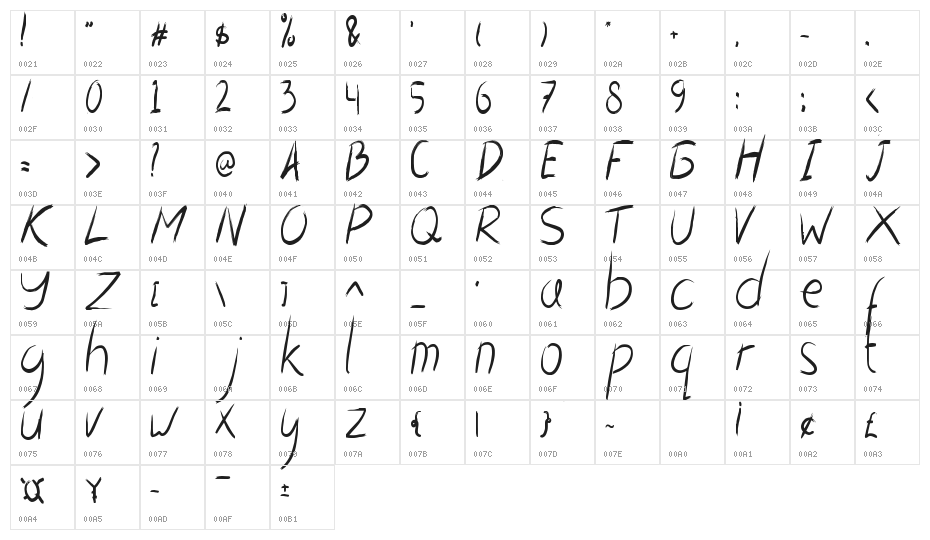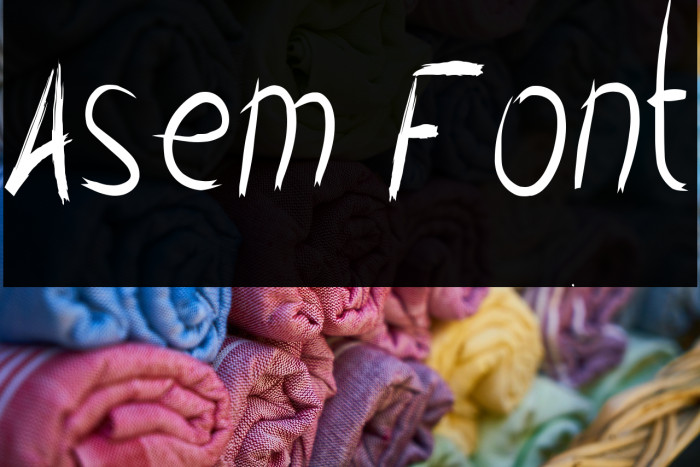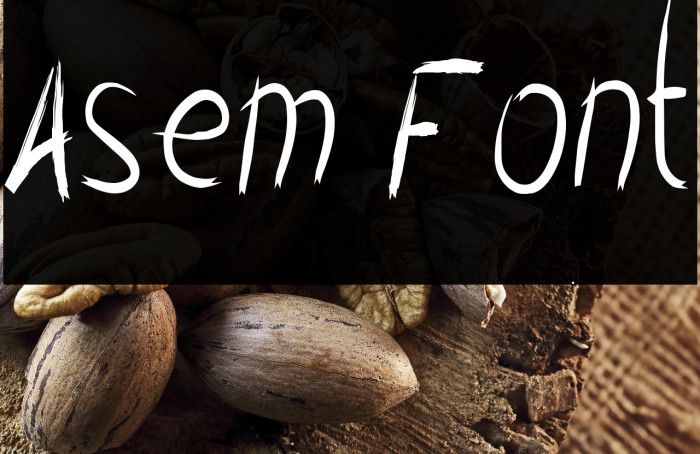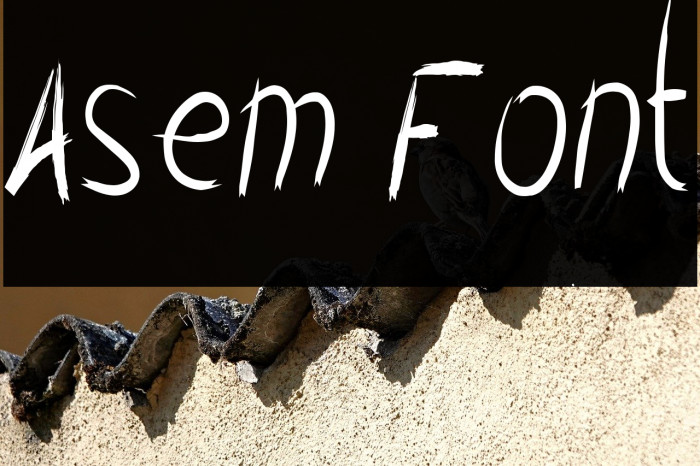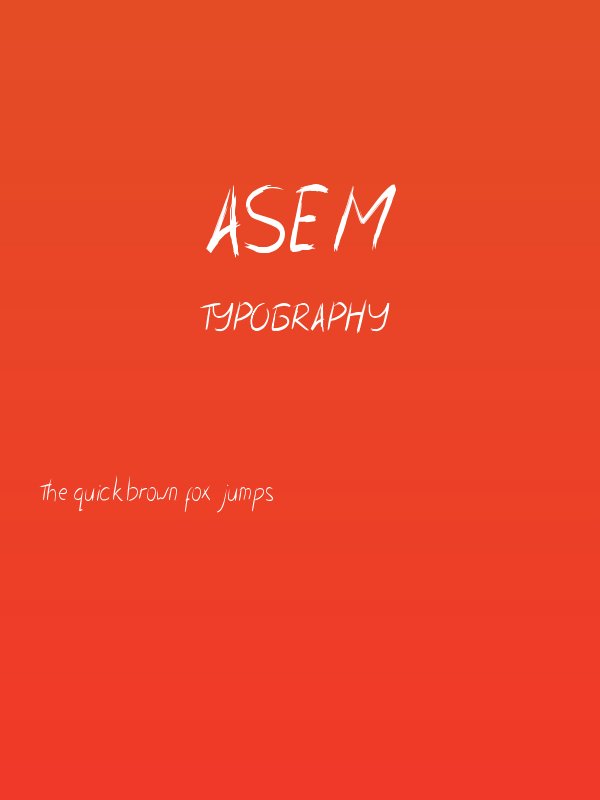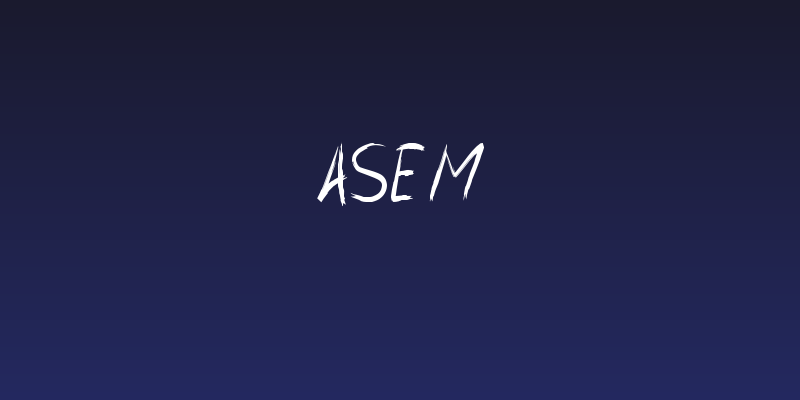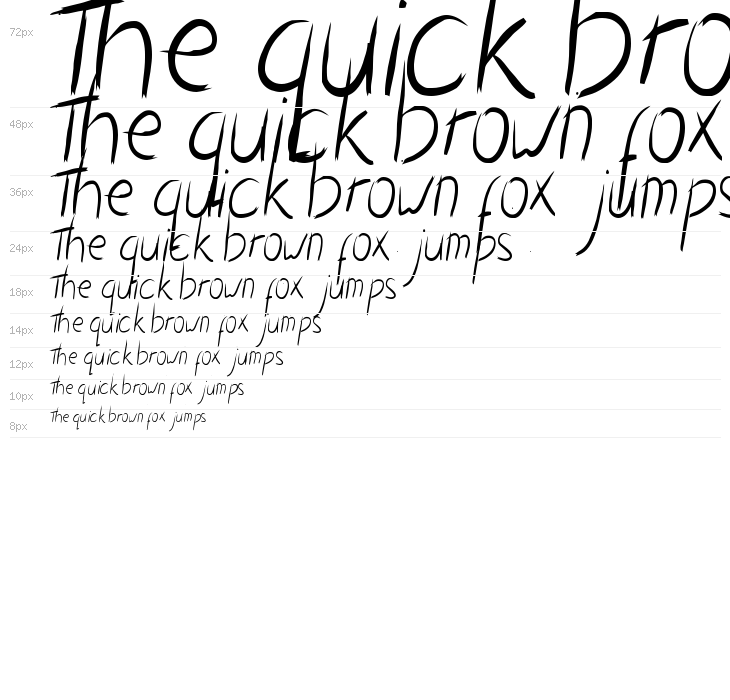
Asem Font
Asem Description
This font features a dynamic and energetic style, characterized by sharp, brush-like strokes that give it a hand-drawn appearance. The letters have a slightly irregular form, adding to the artistic and expressive nature of the typeface. The uppercase and lowercase letters maintain a consistent flow, with elongated and pointed terminals that enhance its dramatic flair. The numbers and special characters follow the same aesthetic, ensuring a cohesive look across all glyphs. This font is ideal for projects that require a bold and creative touch, such as artistic posters, branding materials, or any design that aims to capture attention with its unique and striking appearance.